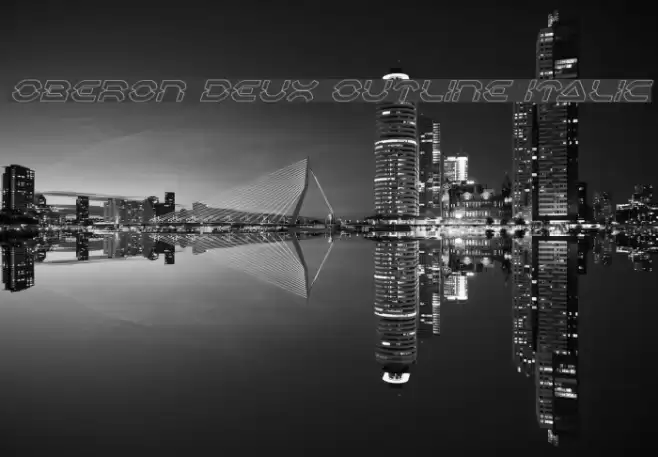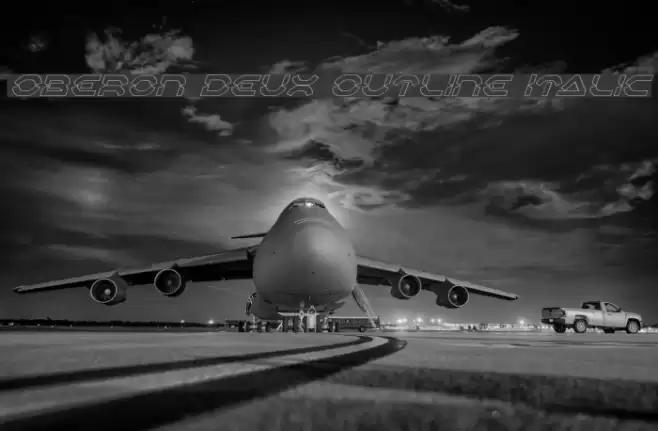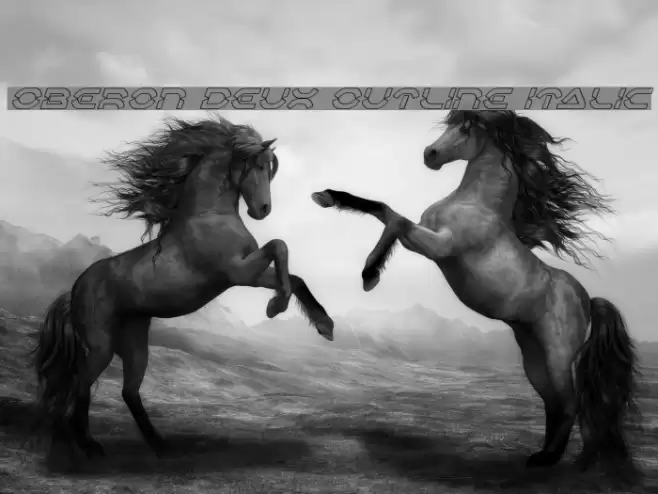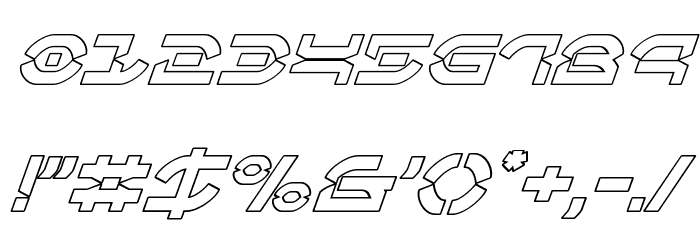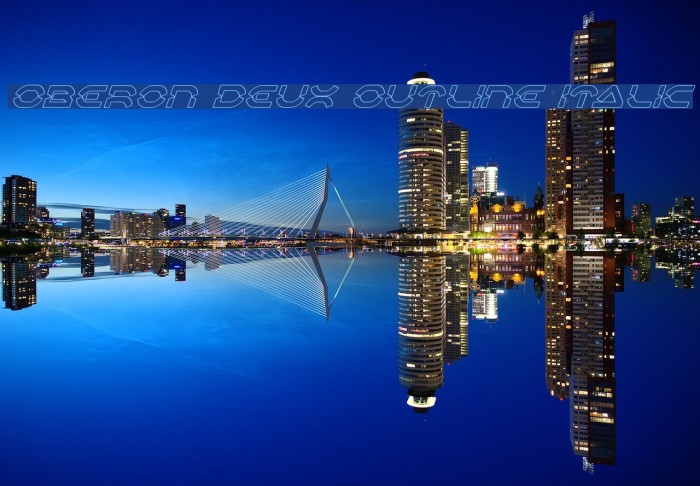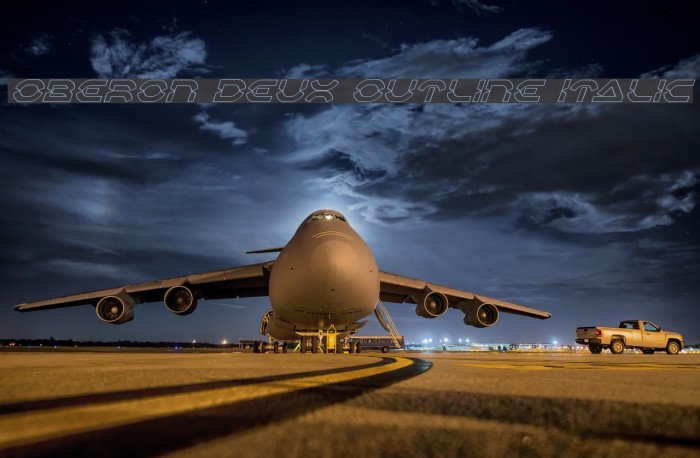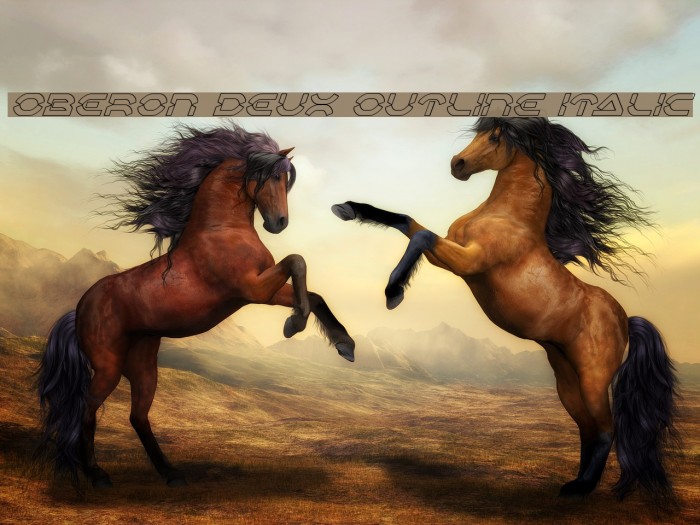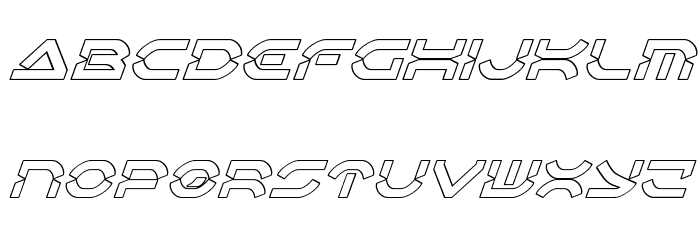
Oberon Deux Outline Italic Font
Oberon Deux Outline Italic Description
This font features a distinct outline style with a futuristic and geometric design. Each character is crafted with angular lines and sharp edges, giving it a modern and technical appearance. The italic slant adds a dynamic and forward-moving feel, enhancing its contemporary aesthetic. The uppercase and lowercase letters maintain a consistent structure, while the numerals and special characters complement the overall design with their unique shapes. This font's outline nature makes it ideal for creating eye-catching designs where the text needs to stand out without being overly bold.
A futuristic, geometric outline font with an italic slant from Sci-fi fonts.
- Proposed Projects: Ideal for technology branding, sci-fi themed projects, modern posters, and digital artwork.